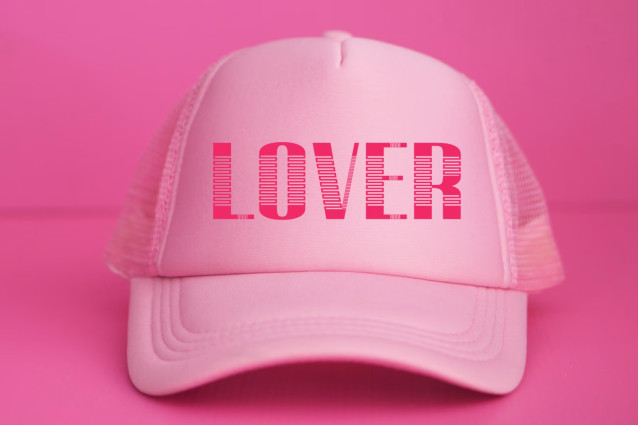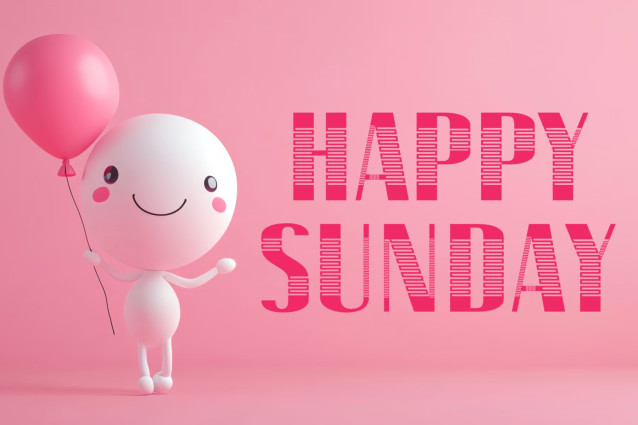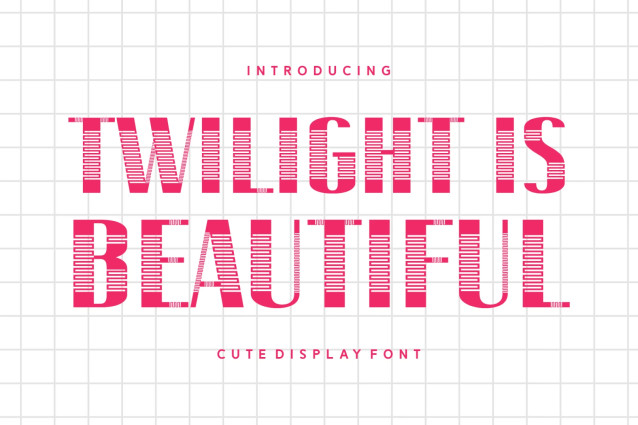
Introducing “Twilight Is Beautiful”, a versatile and charming font that truly lives up to its name. This display font combines elements of a cutesy demeanor with childlike whimsy, perfect for prints and ideal for adding a touch of playful elegance to your designs. Just imagine the beautiful cursive letters gracing the pages of a well-loved storybook or the brand name of a trendy boutique on a polished business card.
Perhaps it’s accentuating a special quote on a greeting card, or effortlessly embodying the spirit of the holiday season on a festive T-shirt. With clean, smooth strokes and couture-like appeal, this seamless blend of authenticity and trendiness is sure to enhance any magazine print or cover, giving it a fresh and modern look. Whether you are designing packaging, logos, or apparel, “Twilight is Beautiful” is a font that adorns everything with its unique charm.
Plus, it flaunts multilingual support to break language barriers and connect with a global audience. So, let your creations speak volumes with “Twilight Is Beautiful”, a font that makes each letter count and every word unforgettable.